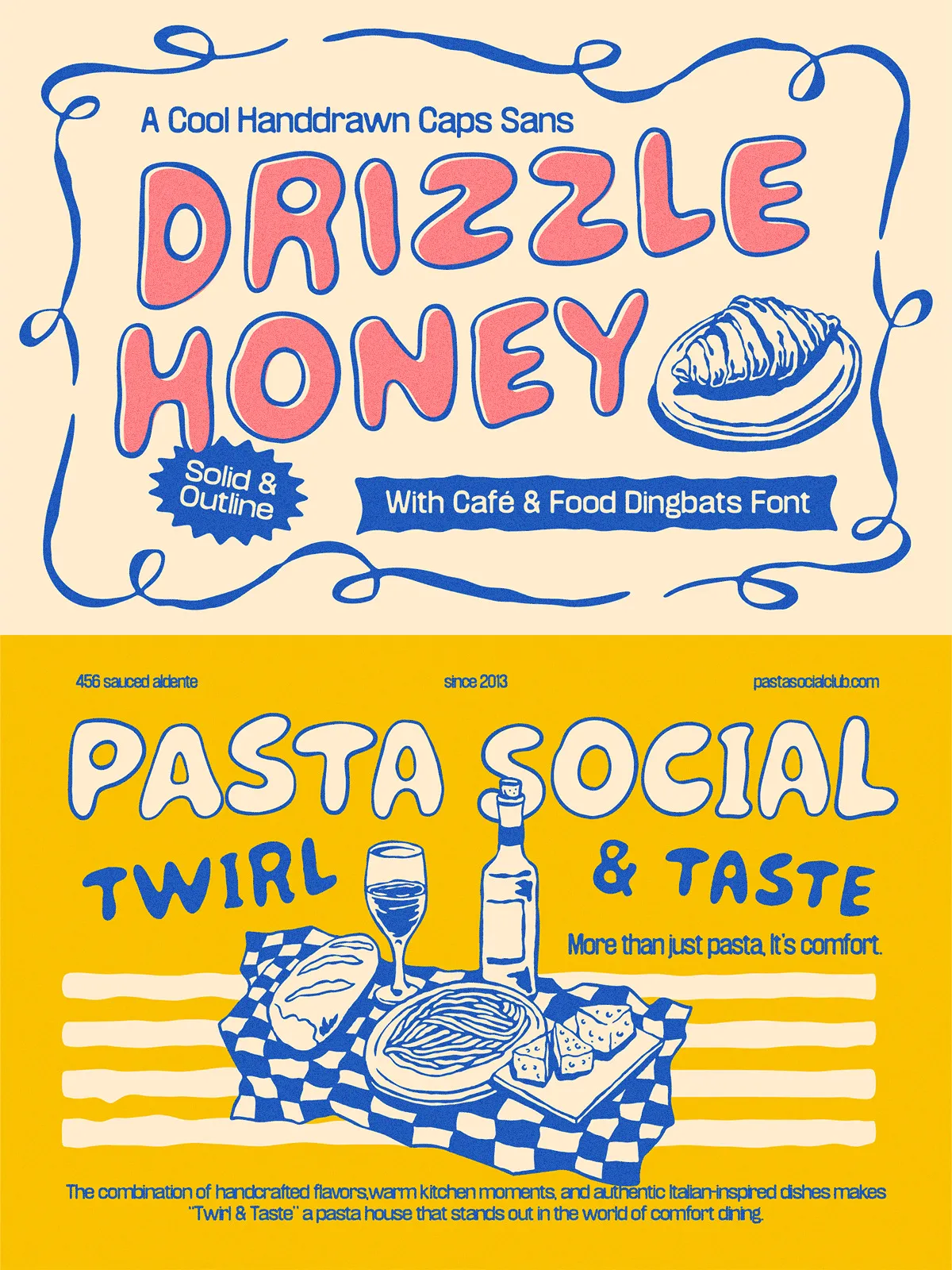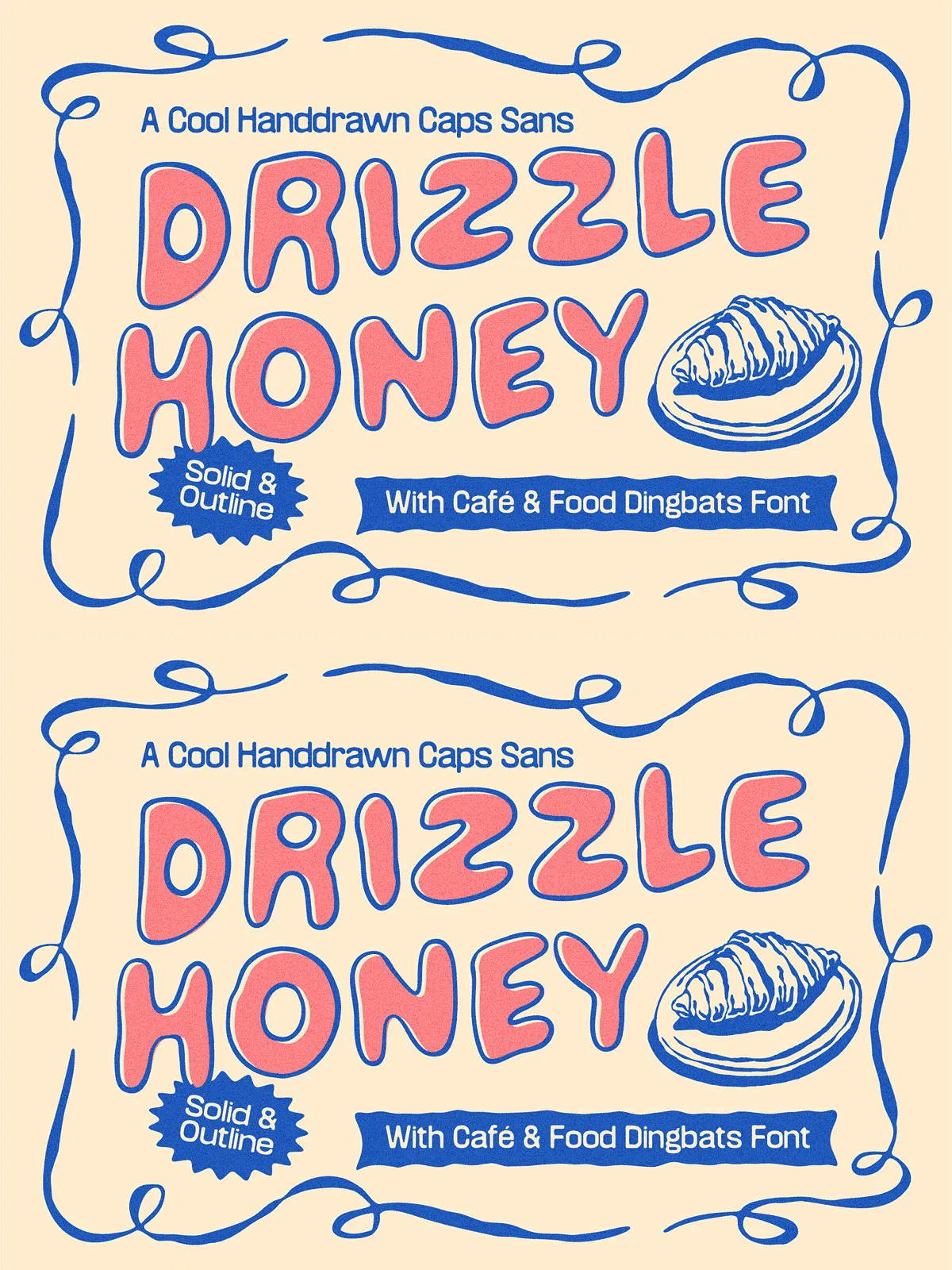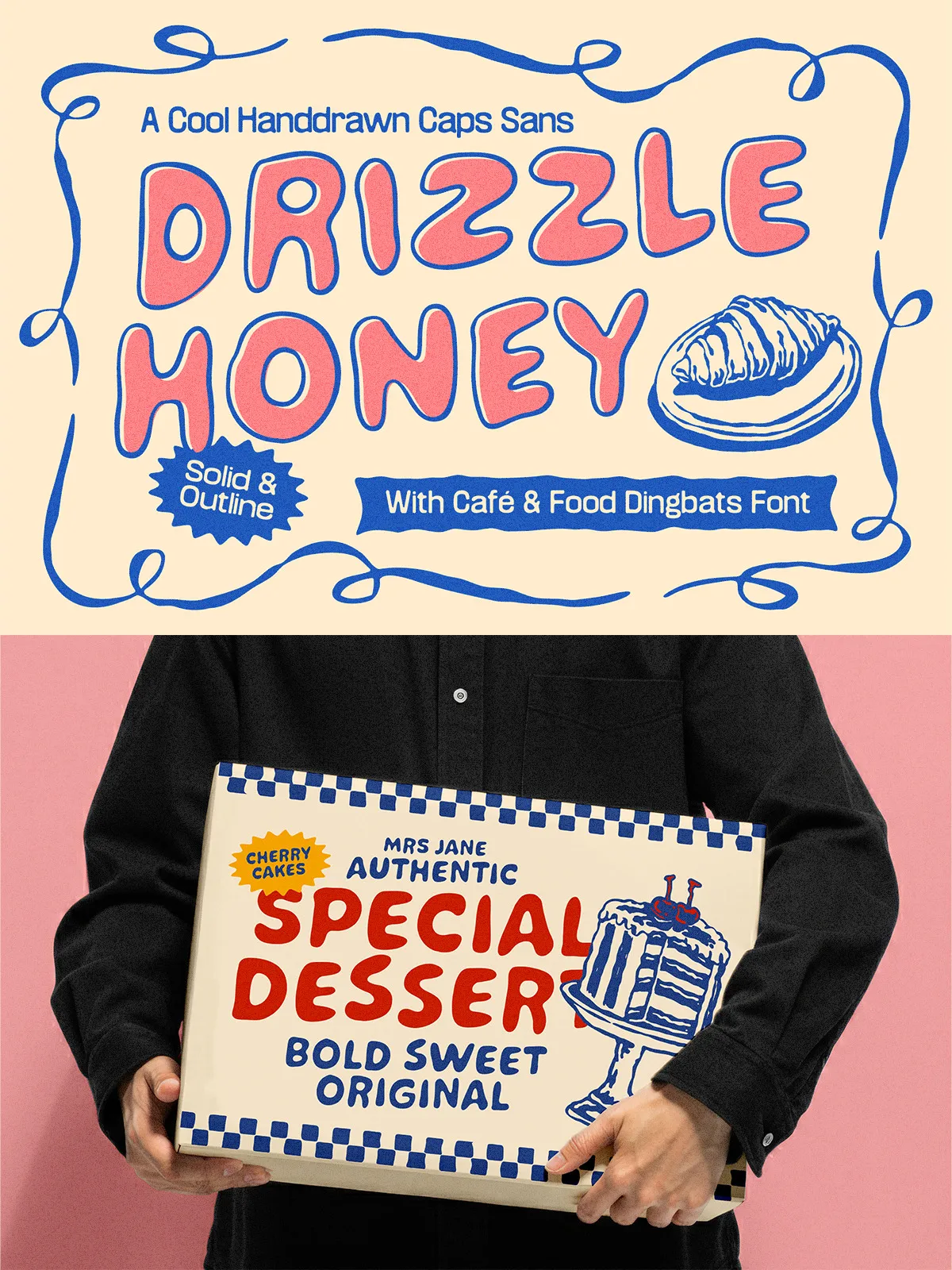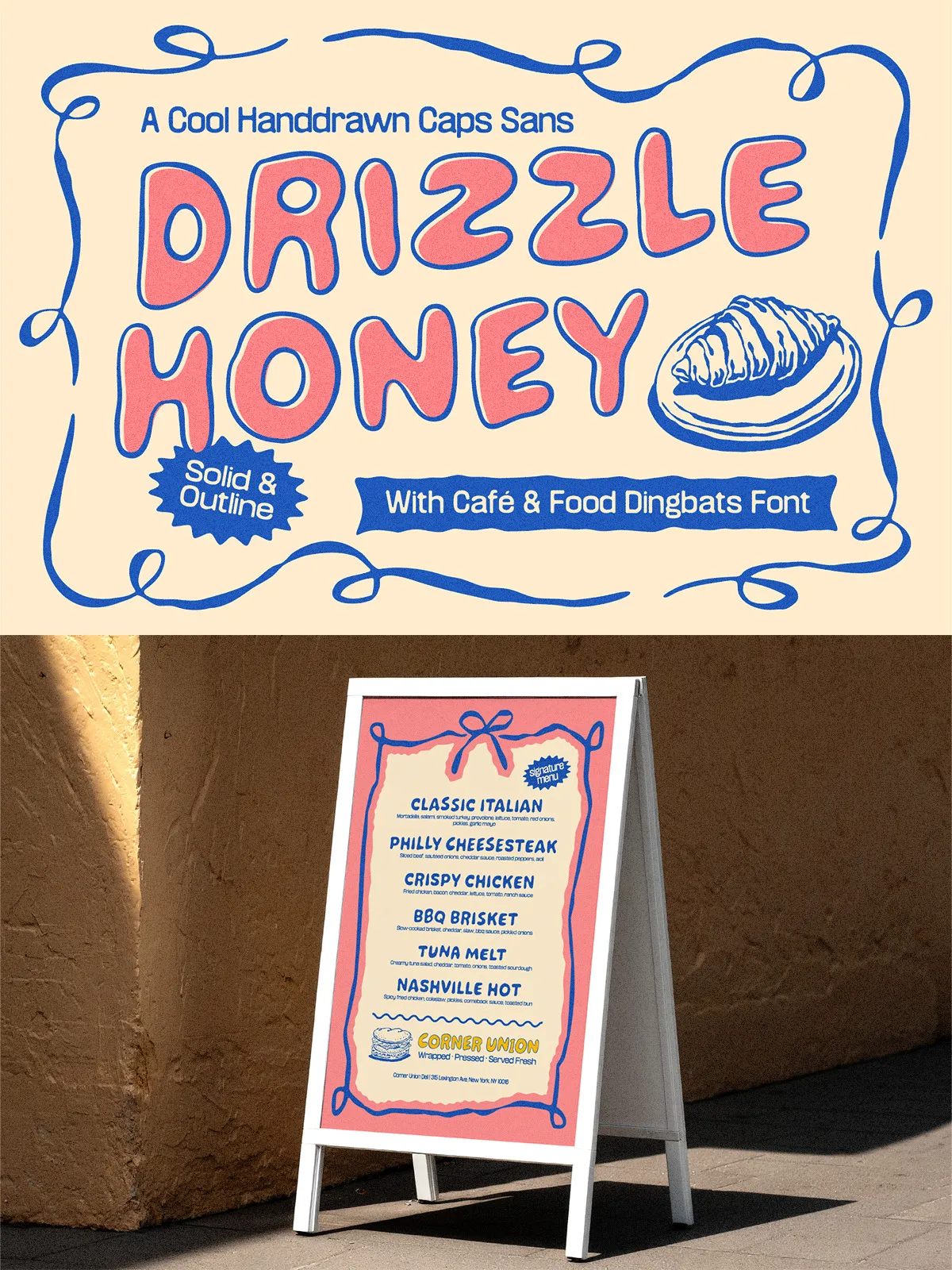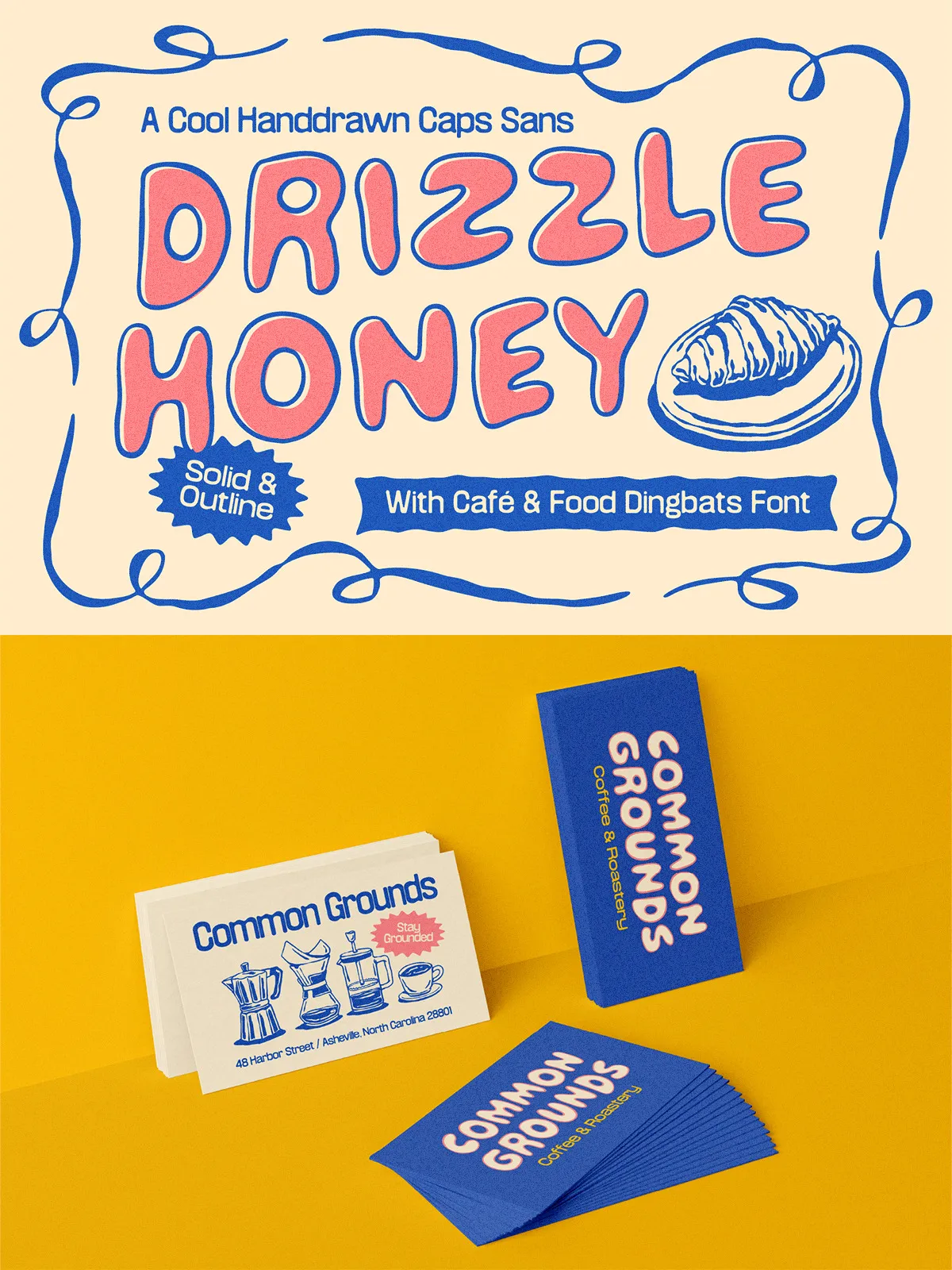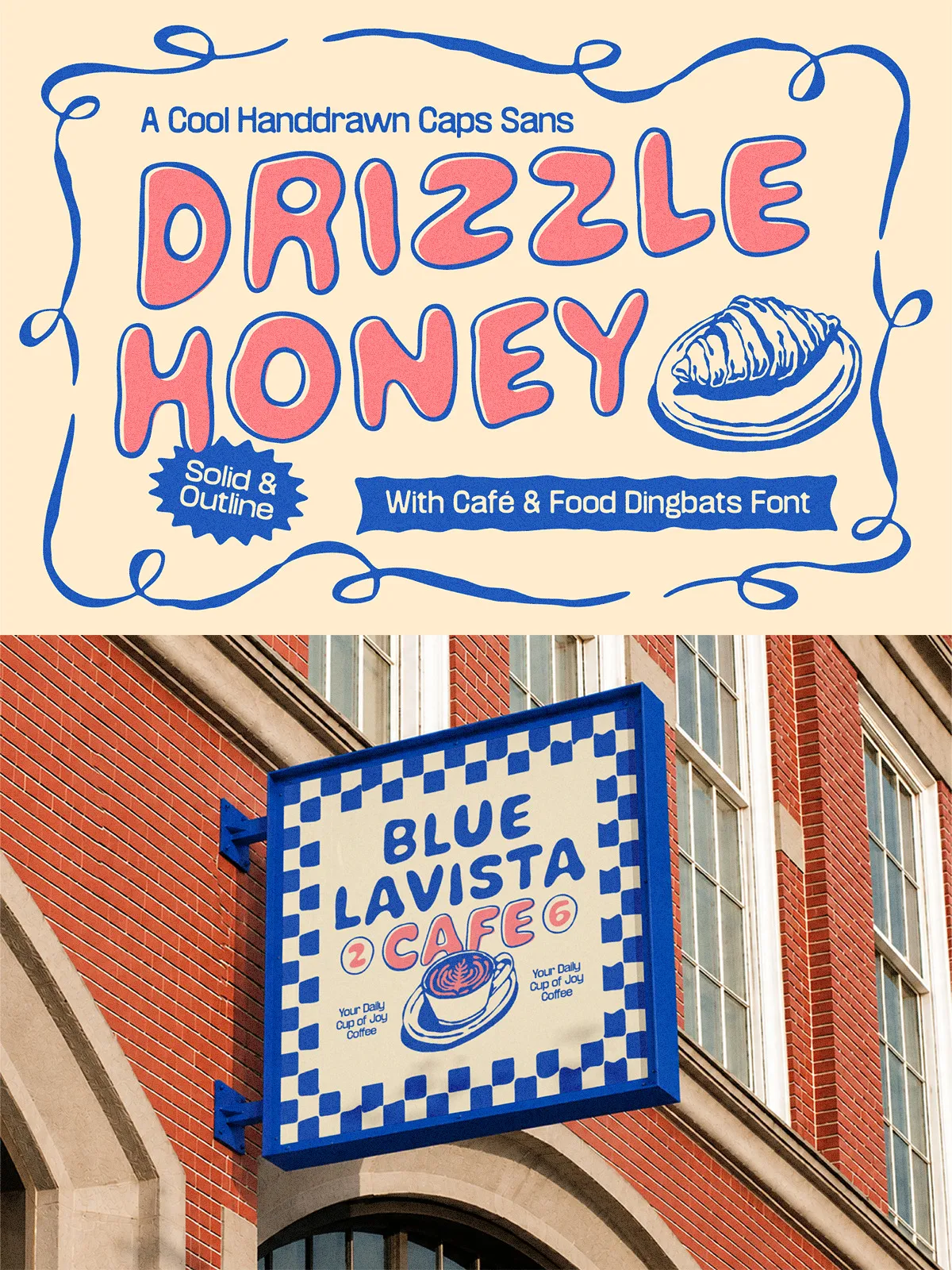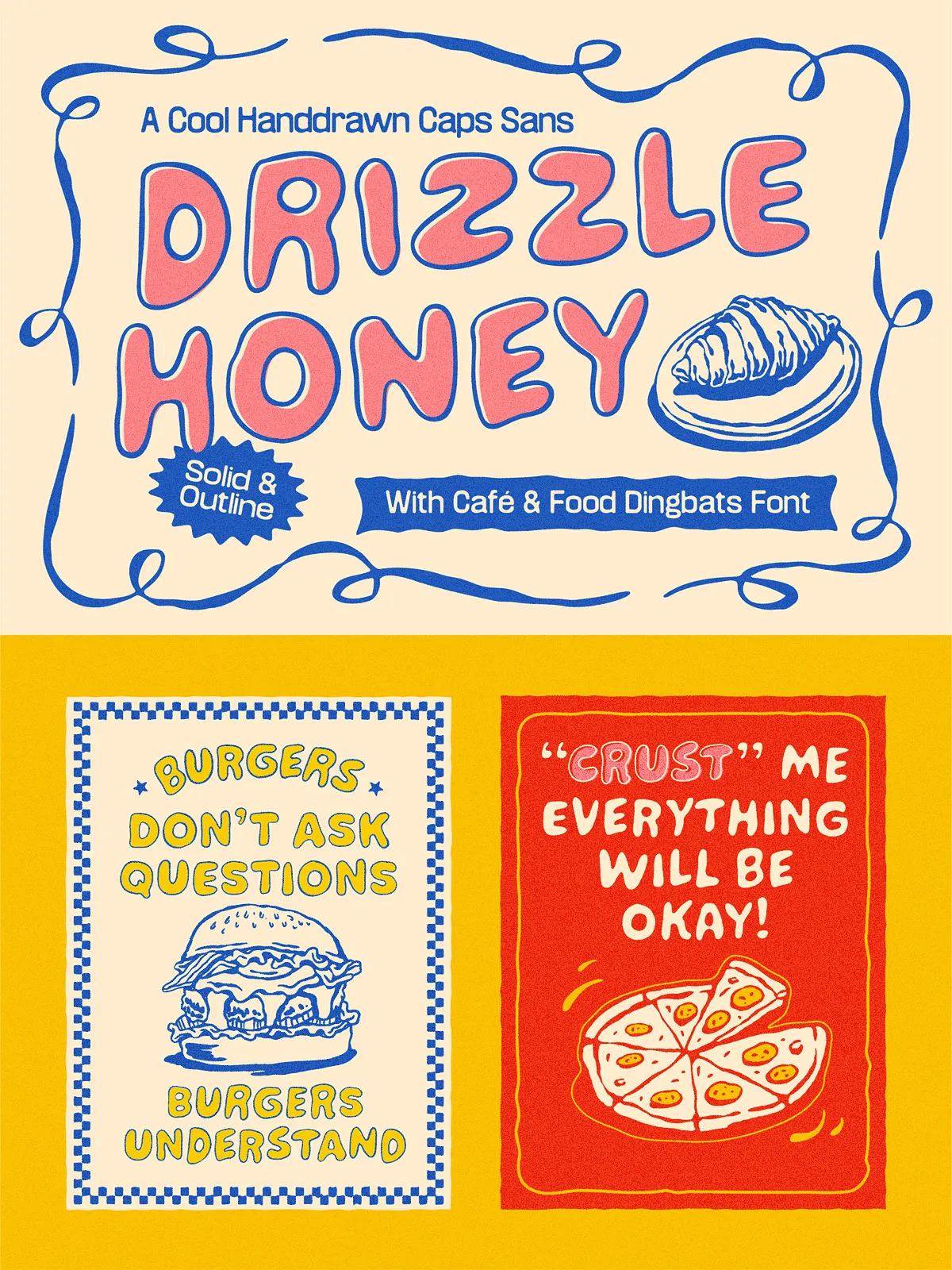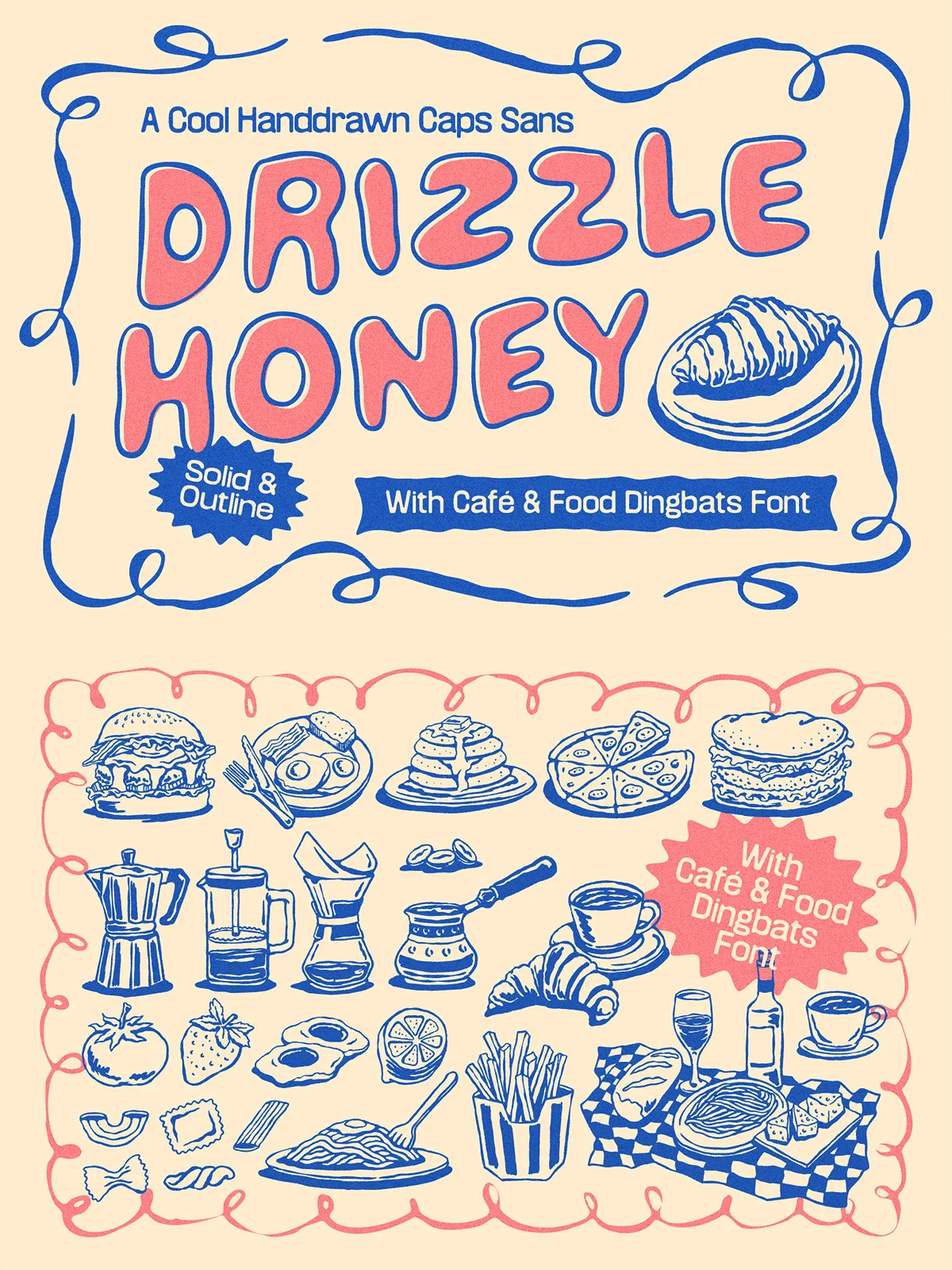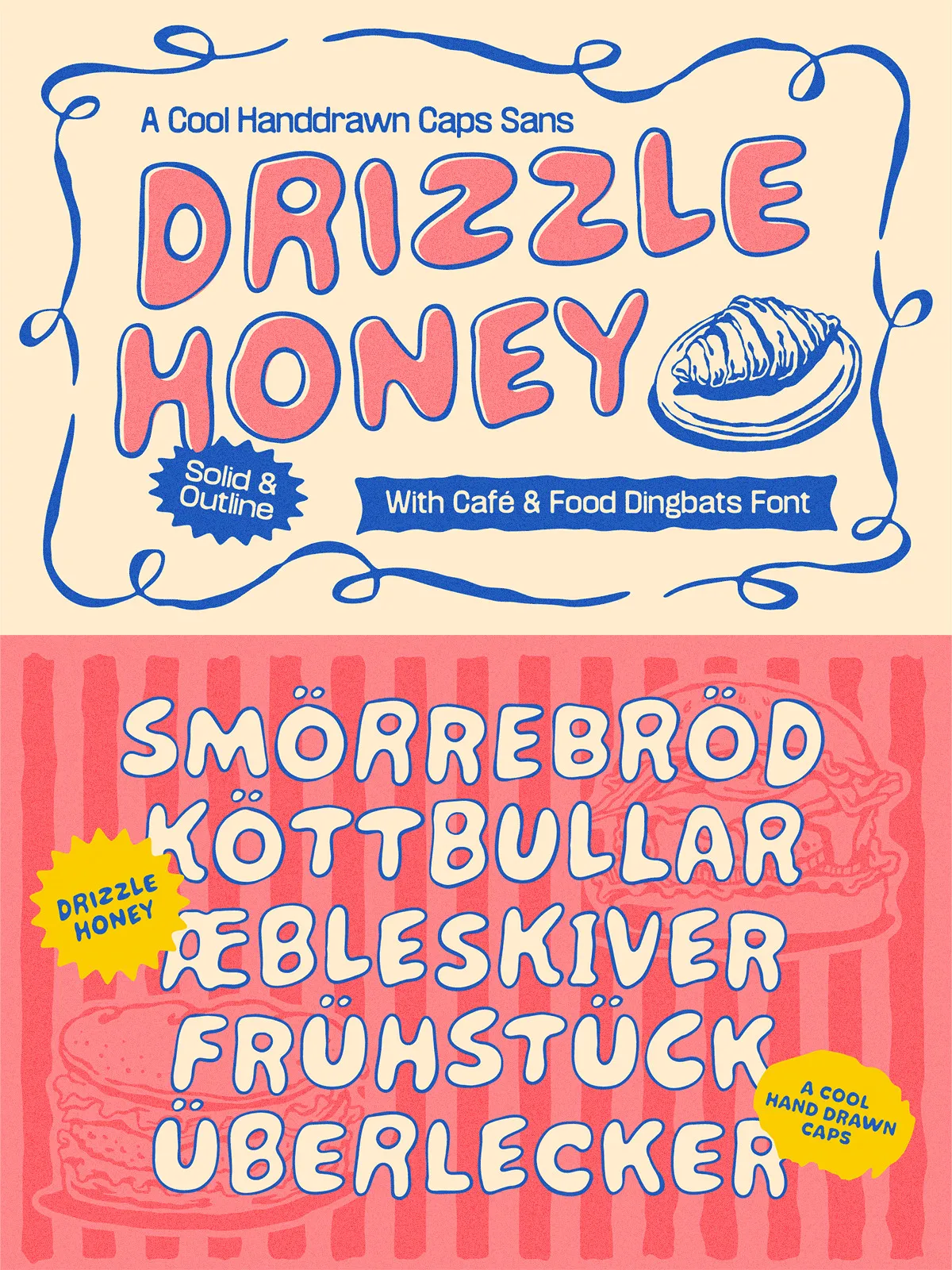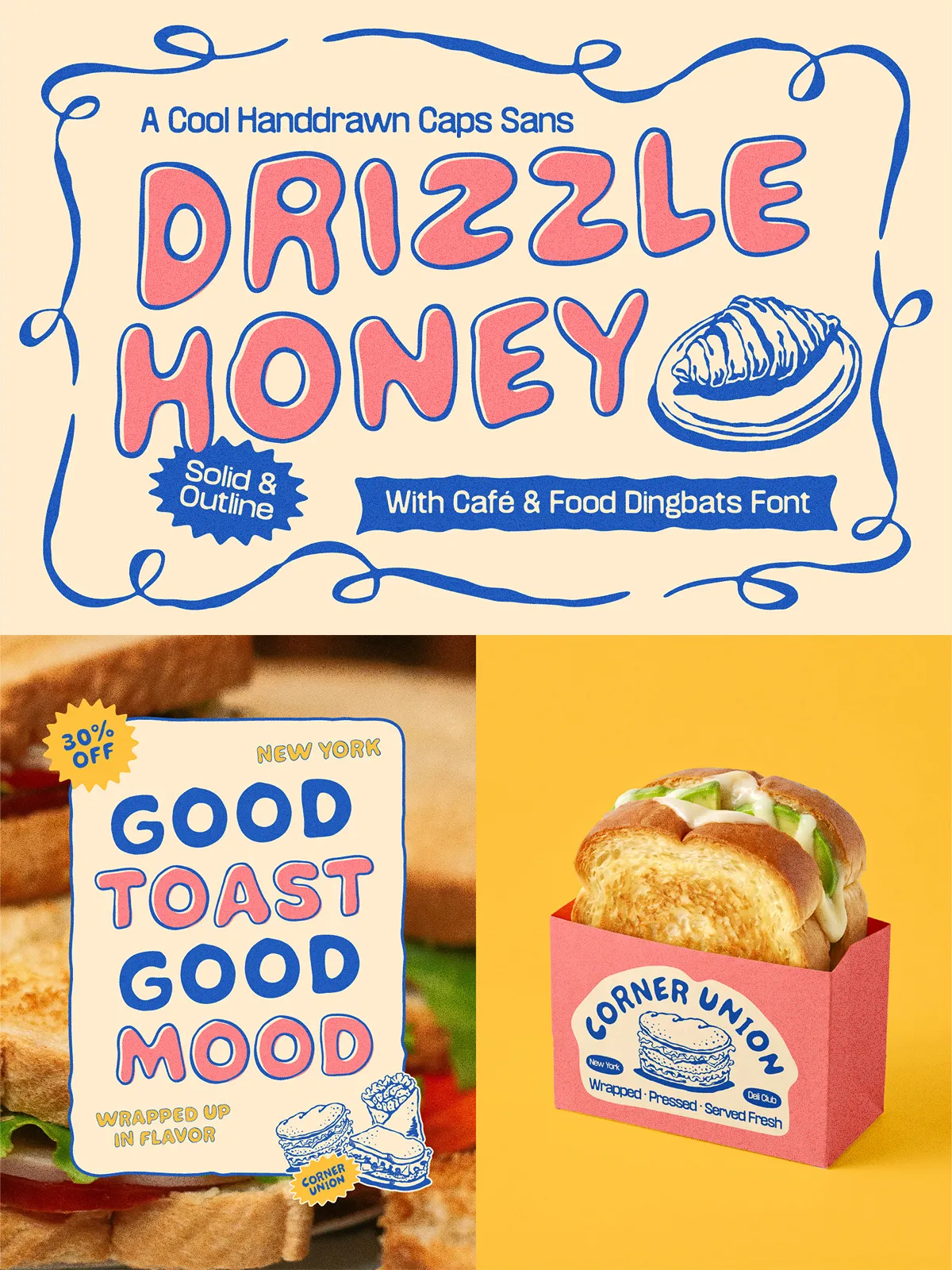
Drizzle Honey injects immediate warmth and personality into your design projects with its distinctive hand-drawn aesthetic. This display font captures the inviting atmosphere of cozy cafés, retro diner signage, and sweet bakery shelves. Designed for brands that want to communicate friendliness, approachability, and fun, Drizzle Honey serves as a powerful visual tool for food-related industries, lifestyle brands, and creative agencies. The font’s chunky, bubbly letterforms create an instant connection with the audience, suggesting quality and care through their organic, imperfect shapes. This typeface is not just text; it is an experience that invites the viewer to enjoy the moment.
Key Features and Design Philosophy
Three Distinct Styles for Versatile Application
One of the greatest strengths of Drizzle Honey is its comprehensive stylistic range. The package includes three unique weights: Regular, Outline, and Dingbats. This variety allows designers to create visual hierarchy and interest within a single composition. Use the Regular style for primary headlines that need weight and presence. Switch to the Outline style for a lighter, more airy feel that works well for secondary text or decorative accents. The Dingbats component adds a layer of whimsy, offering charming illustrations that complement the lettering and enhance the food-inspired theme.
Organic and Playful Aesthetic
Drizzle Honey is designed with a relaxed, handmade feel that distinguishes it from rigid, geometric fonts. The letterforms exhibit subtle variations that mimic the natural movement of a hand holding a marker or pen. This organic quality adds depth and character, preventing the text from feeling static or corporate. The playful nature of the font makes it ideal for projects that want to break away from traditional seriousness. It brings a sense of joy and creativity to any layout, whether it is a menu board, a social media post, or a product label.
Perfect for Food and Lifestyle Branding
This font is specifically engineered to enhance content related to food, drink, and lifestyle. For café menus, Drizzle Honey creates an inviting atmosphere that encourages customers to explore the offerings. On food packaging, it signals freshness and artisanal quality, distinguishing products on crowded shelves. For social media content, the font’s eye-catching style helps grab attention in fast-scrolling feeds. It is equally effective for blog headers, event posters, and promotional materials that aim to create a fun and engaging user experience.